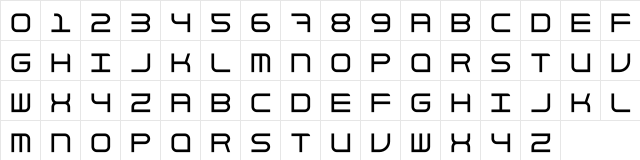
STRUKTUR Regular
STRUKTUR takes a measured approach to typography — its balanced proportions and neutral character make it a reliable workhorse for both digital and print work.